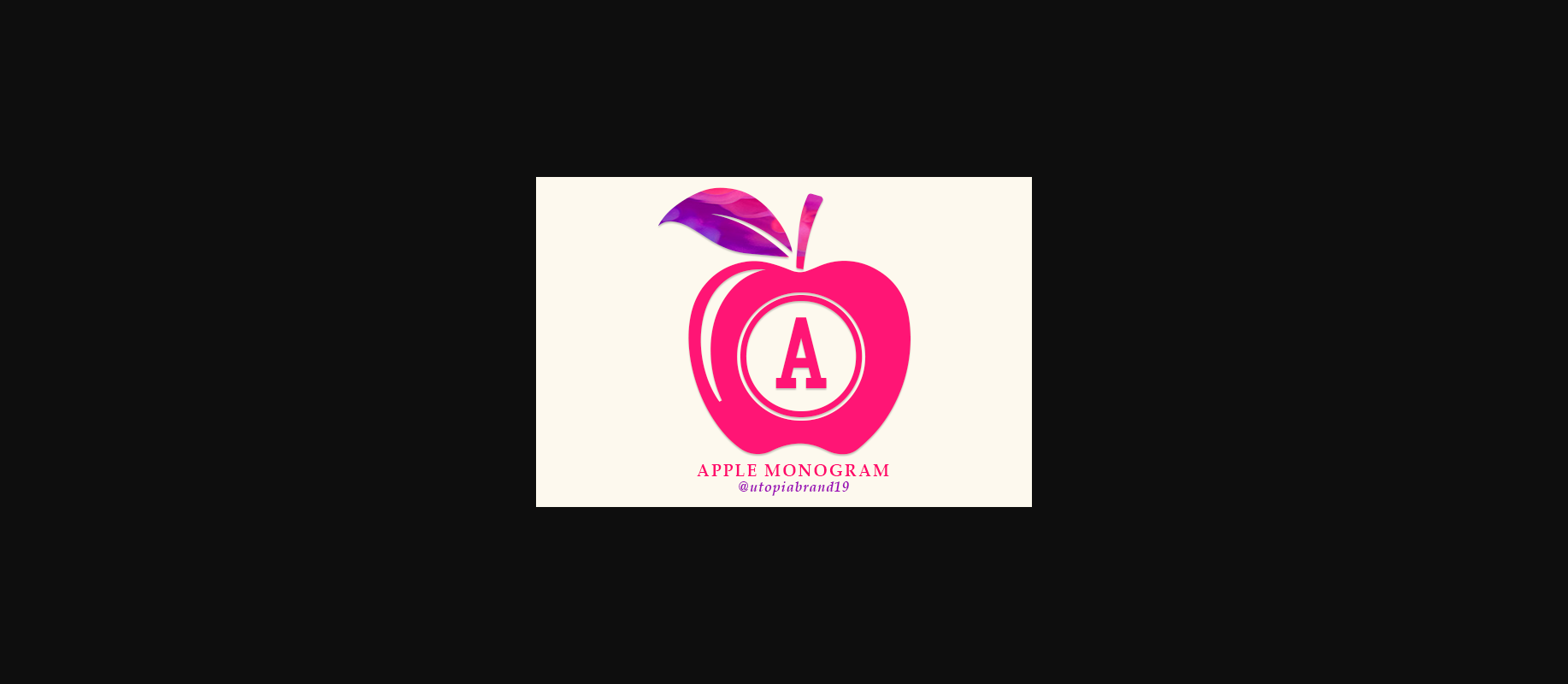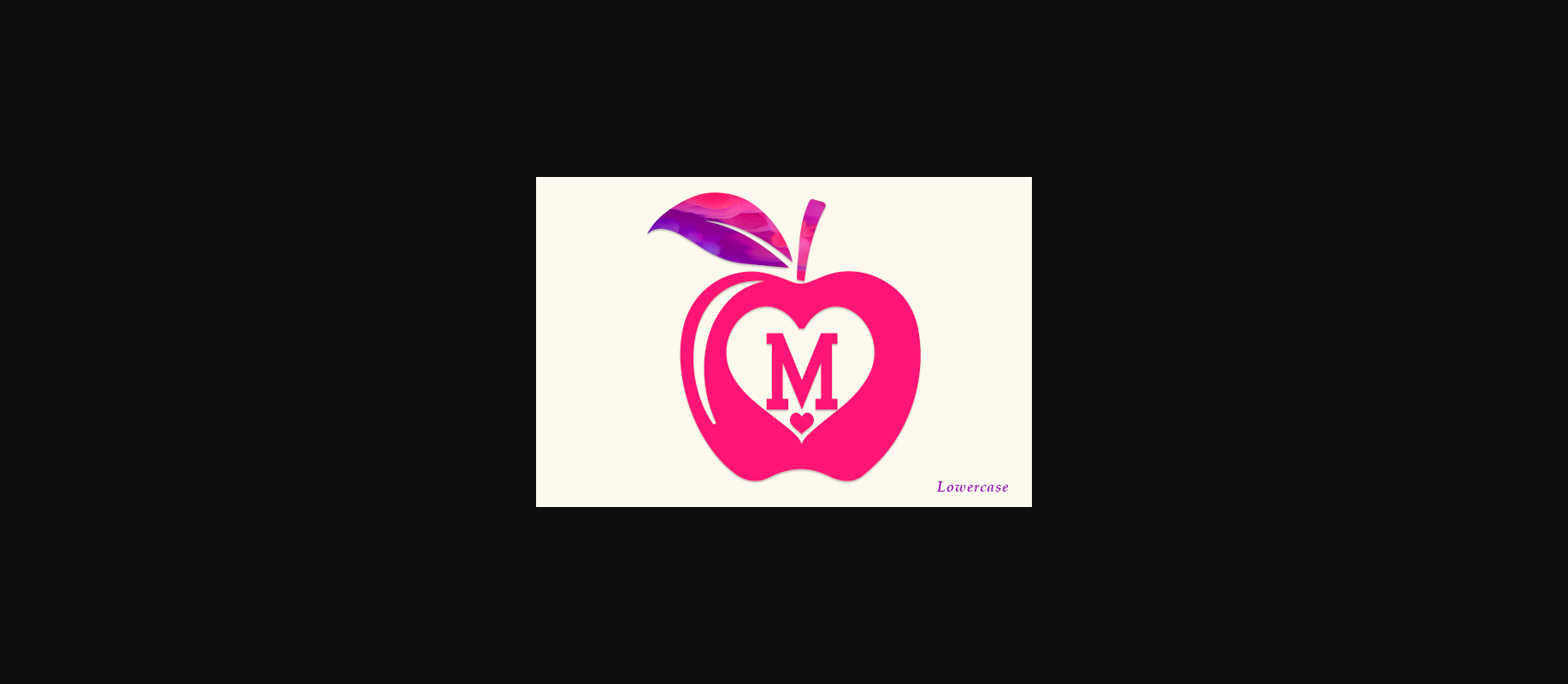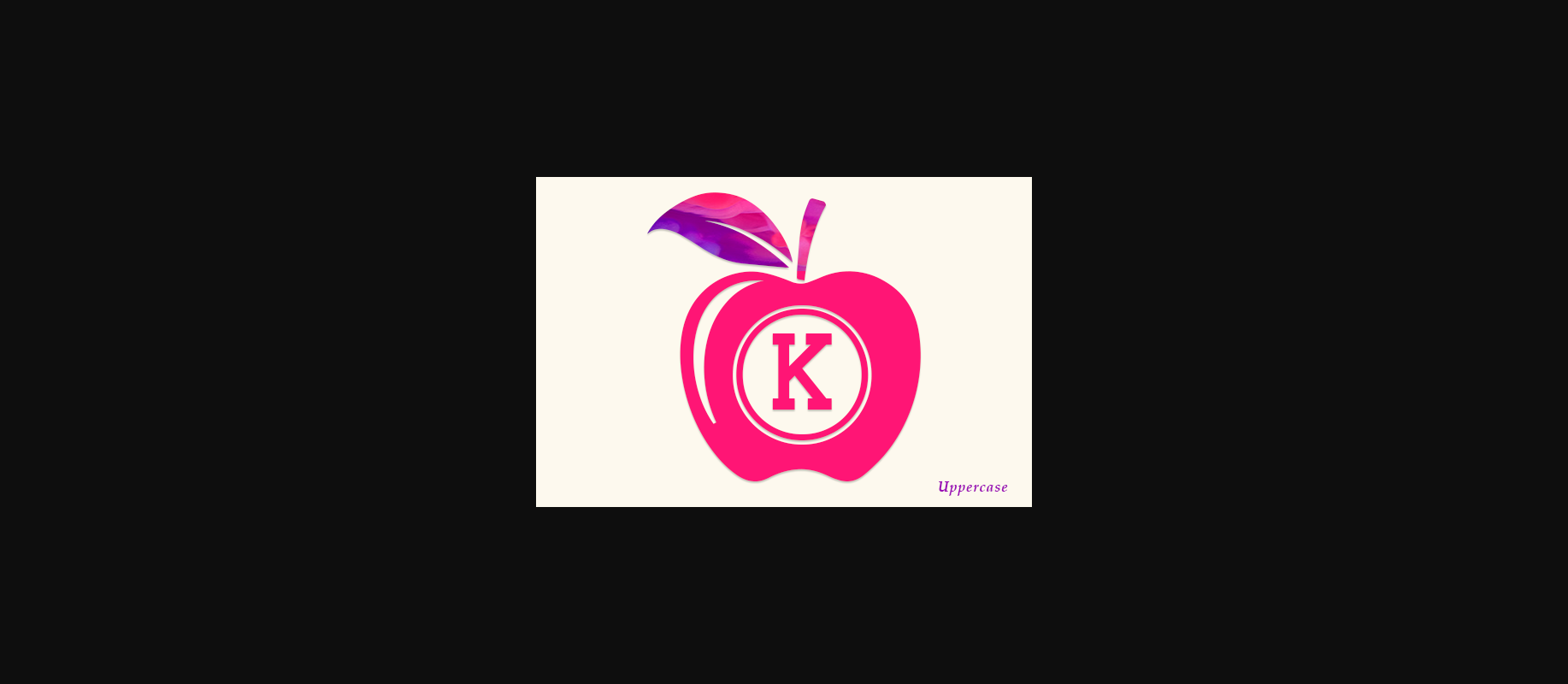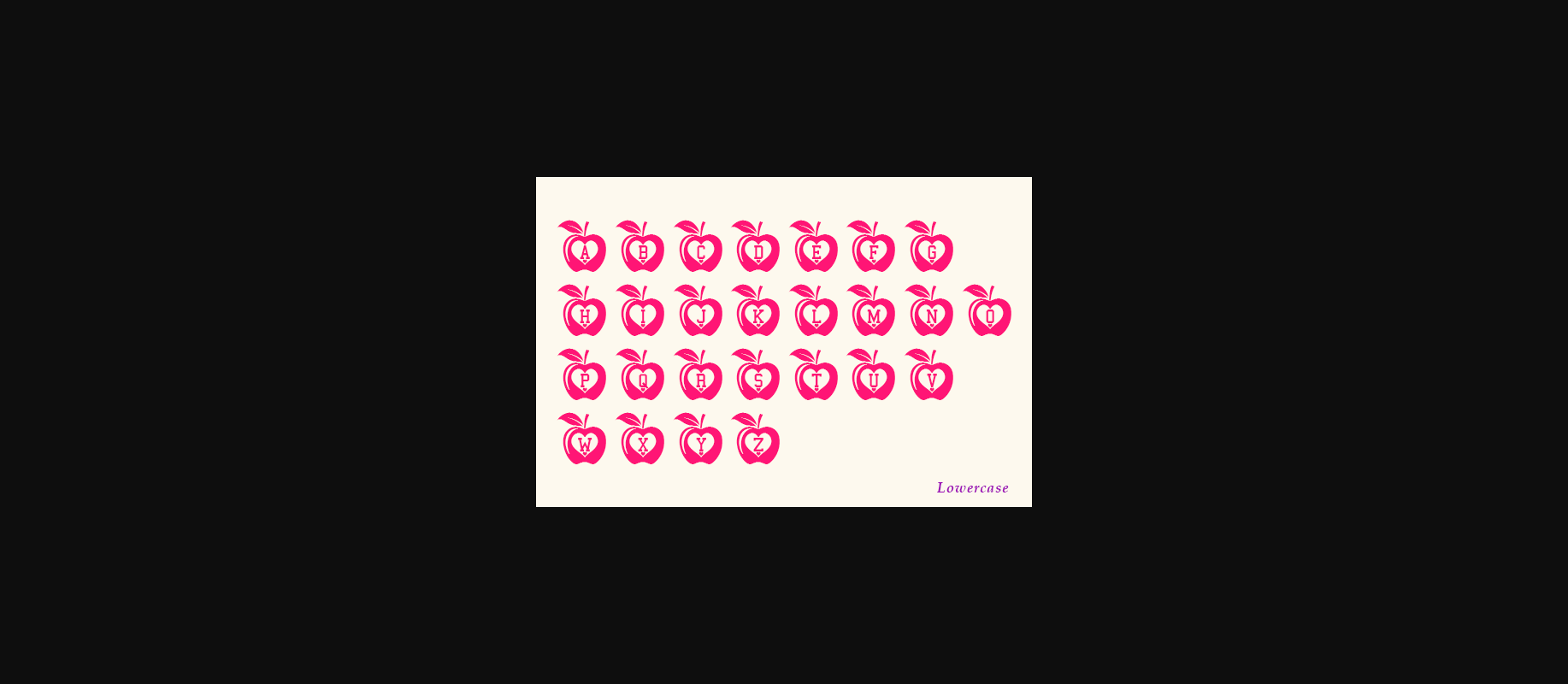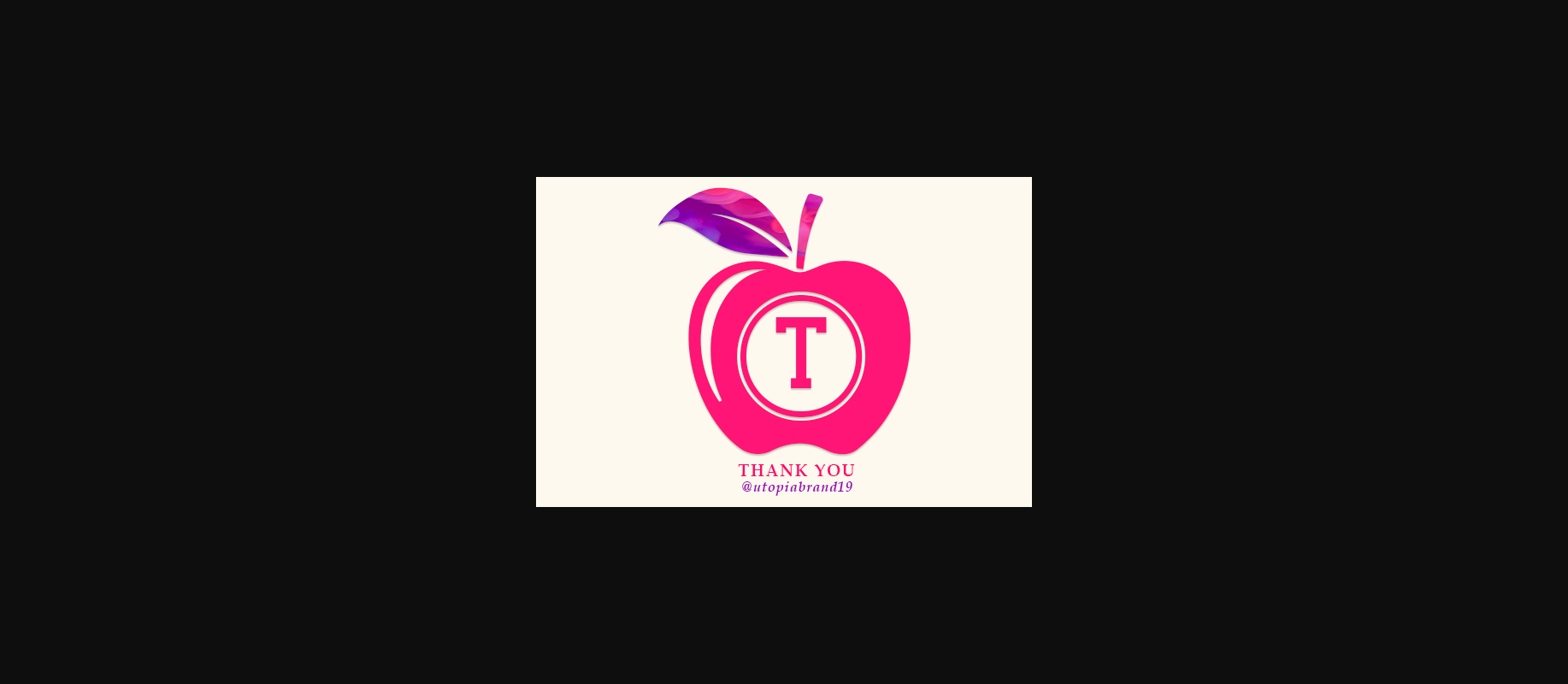
Apple Monogram Font
About Apple Monogram Font
Apple Monogram is a versatile and authentic decorative font. Add this lovely looking font to each of your menus, invitations or favorite design ideas, and you will be astounded by the outcome.